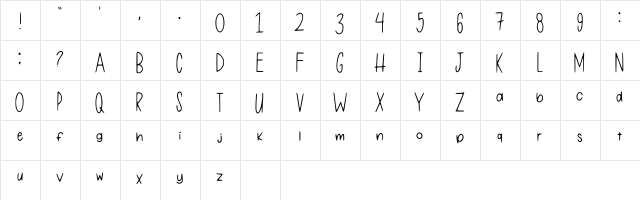
One Of My First Fonts Regular
Design Context for One Of My First Fonts Typeface
One Of My First Fonts offers clean, dependable letterforms without strong stylistic allegiance, making it a practical choice for designers who need flexibility.